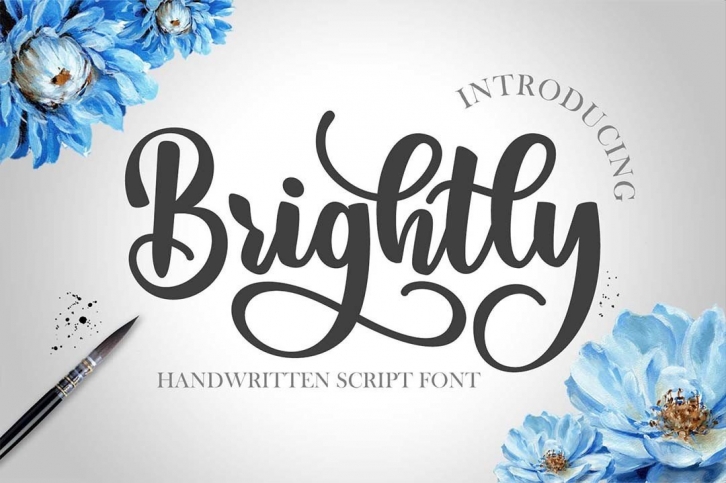
Brightly is a romantic and lovely handwritten script. It features beautiful curves in every letter. Brightly is suitable for wedding invitations, headlines, corporate or brand identity, posters, magazines, books, YouTube, Instagram, or any of your creative design projects.